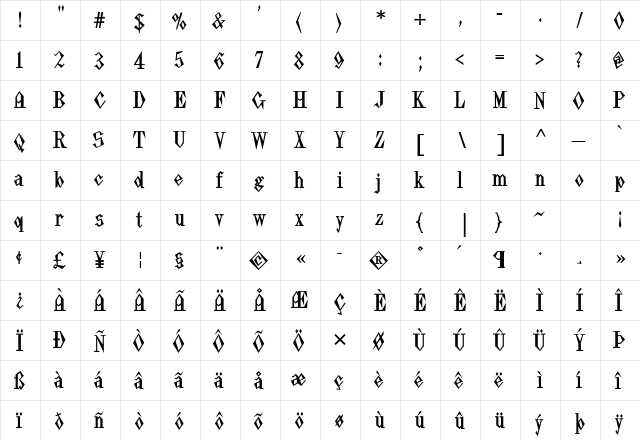
Pasdecourbe Bold
Design Context for Pasdecourbe Typeface
Pasdecourbe is a composed and adaptable typeface that performs quietly and consistently across a wide range of design contexts. The heavy weight commands attention and anchors typographic hierarchies.